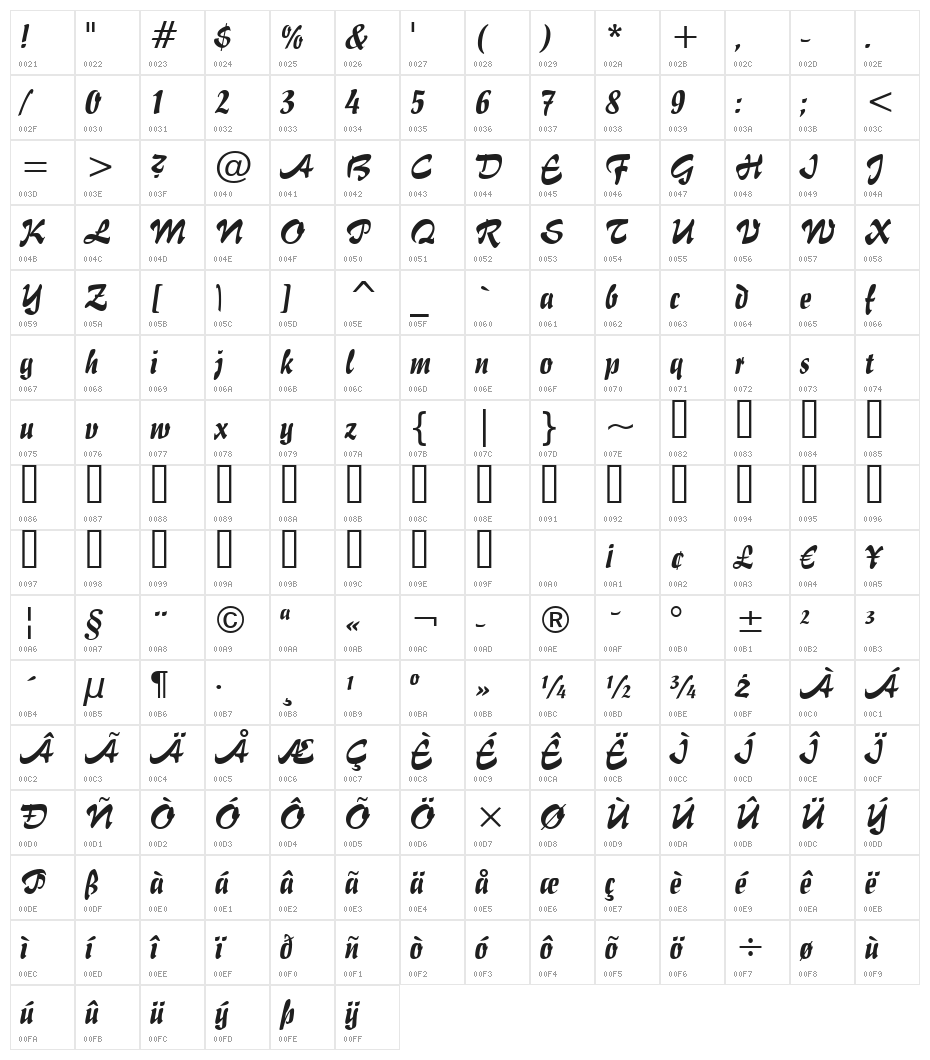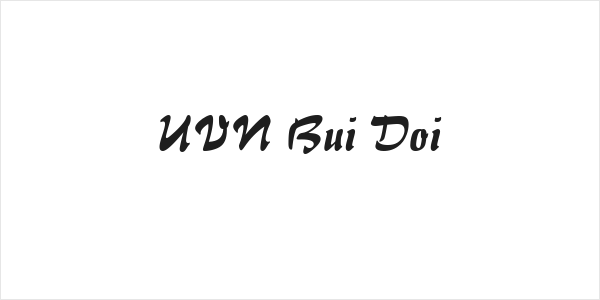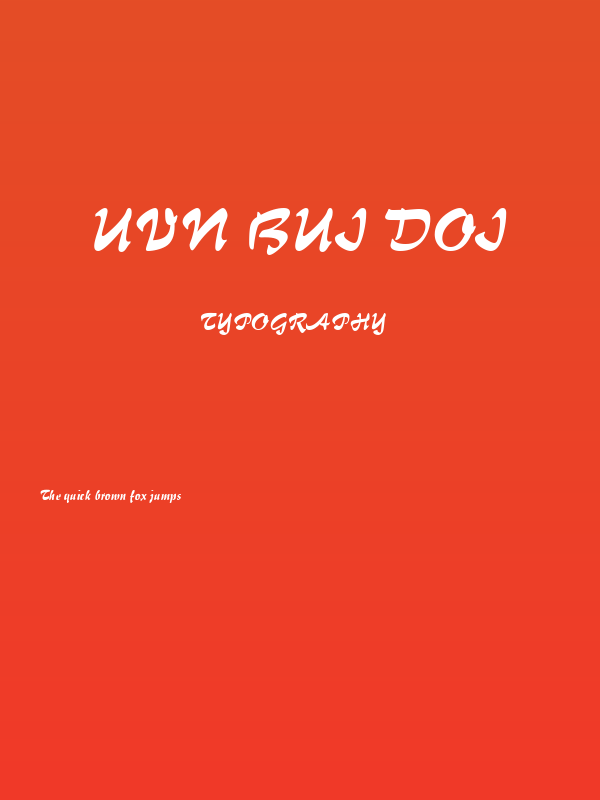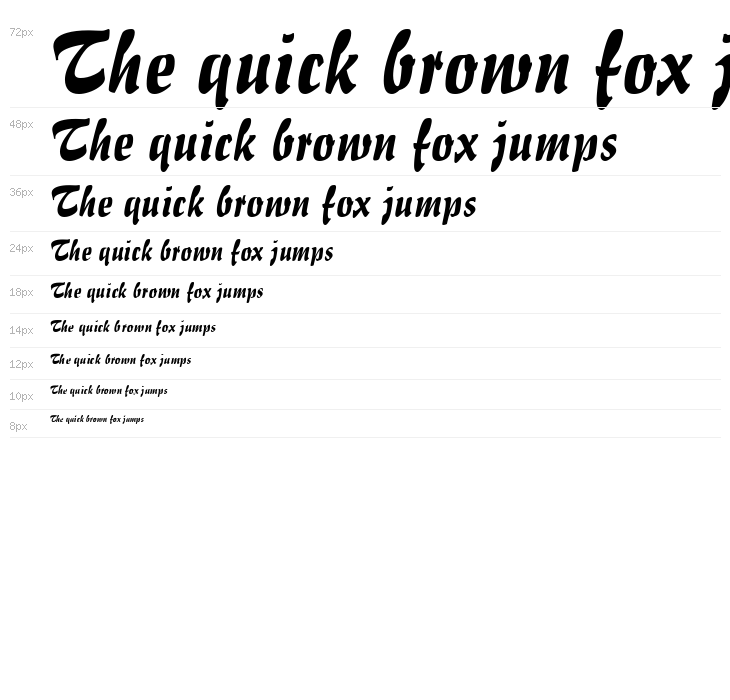
UVN Bui Doi Font
UVN Bui Doi Description
This font features a bold and dynamic script style with a strong presence. The characters are fluid and connected, giving a sense of movement and elegance. The uppercase letters are slightly more ornate, with sweeping curves and flourishes, while the lowercase letters maintain a consistent flow. The numerals are clear and bold, matching the overall aesthetic of the font. Special characters are well-integrated, maintaining the script's cohesive look. This font's design is both artistic and functional, making it suitable for a variety of creative applications.
Use CaseLogos, Invitations, Artistic projects
Proposed ProjectsIdeal for branding, invitations, greeting cards, and artistic projects requiring a personal touch.